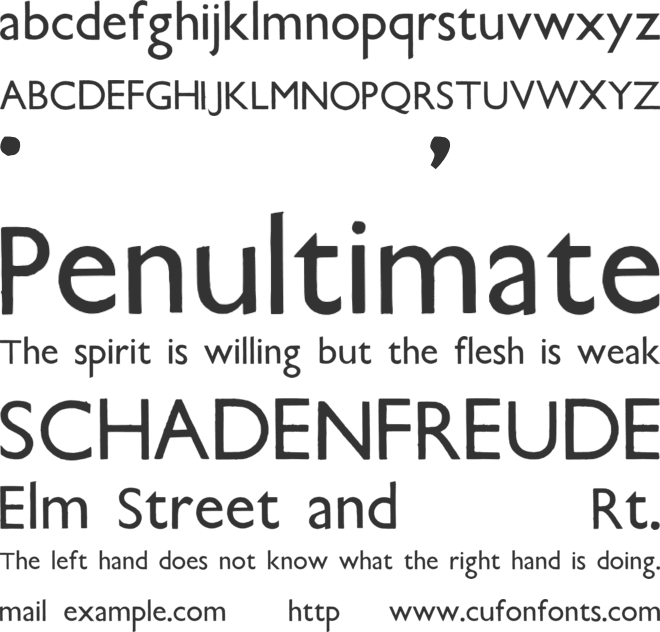
Sans Guilt DB Font Family
Versions of Gill Sans based on three different sources. Sans Guilt MB: Based on a rasterized pdf made with the Monotype Gill Sans delivered with Mac OSX. Sans Guilt DB: Based on early sketches by Eric Gill. Sans Guilt LB: Based on lead type from Royal College of Arts letterpress workshop.